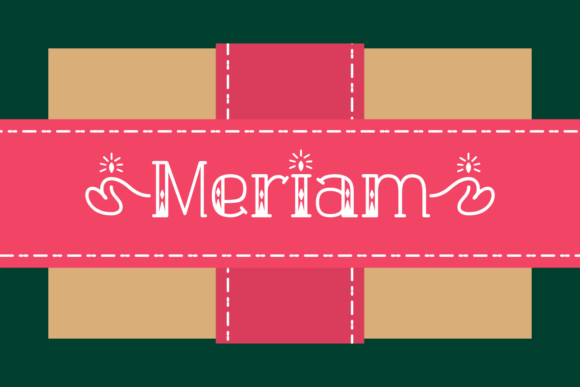
Behold the captivating allure of Meriam, a brainchild of Jasm (7NTypes), a name reverberating with the echo of boundless creativity. Meriam stands apart as a display font, a flamboyant dance of letters across the digital canvas, igniting a spark of inspiration in the hearts and minds of discerning designers.
Immerse yourself in a world where imagination takes center stage, where Meriam's simple yet elegant strokes orchestrate a symphony of visual delight. Its inherent beauty transcends the ordinary, effortlessly elevating your designs to dizzying heights of artistic expression.
Step into the realm of branding with Meriam as your trusted ally, transforming mundane logos into emblems of distinction. Unleash its power to craft product packaging that enchants and captivates, leaving an indelible mark on the minds of consumers.
With Meriam, invitations transcend mere pieces of paper, becoming exquisite works of art that hint at the grandeur of the event to come. Its graceful lines dance across the page, beckoning your guests into a world of elegance and sophistication.
Let Meriam's enchanting allure grace your quotes, turning them into timeless treasures, whispered secrets waiting to be discovered. Imagine your words, adorned with Meriam's timeless beauty, resonating with a depth and power that stir the soul.
T-shirts adorned with Meriam's artistry become wearable expressions of individuality, a silent yet potent declaration of one's unique style. Its playful charm lends itself perfectly to creating labels that demand attention, transforming ordinary products into objects of desire.
Posters explode with vibrant energy when graced by Meriam's presence, its bold strokes commanding attention, making your message impossible to ignore. Logos infused with Meriam's magic transcend mere identification, becoming symbols of excellence, leaving an enduring legacy in the minds of those who encounter them.